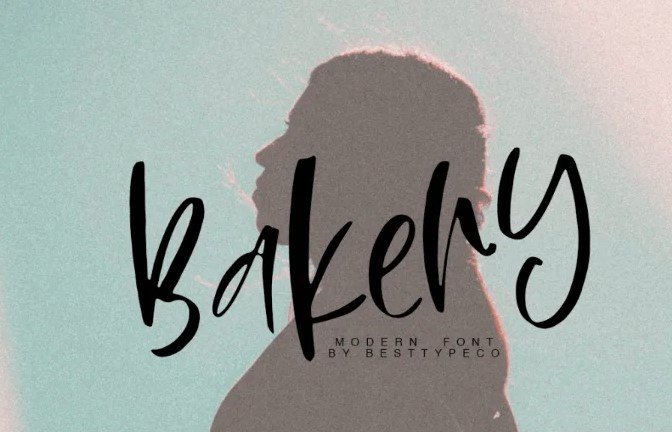
Hello graphic designers and website developers, if you want to make your designs more attractive, charming, and visually appealing, you need to use the Bakery Font, which is available here for free for all your personal designs. This font boasts a great vintage look and high-quality design that will enhance the fashionability of any type of work.
This modern typeface can workable with the combination of awesome birds font as a pairing. It might be your loved typeface when you will use it one time in your designs that can easily be made in adobe photoshop or illustrator etc.
Bakery Font available in 6 different weights and widths. All of its characters have charm designs that work like a champ. We must recommend you to download it.
Of course you can use the Bakery for your logo as well as all other graphic designs projects.